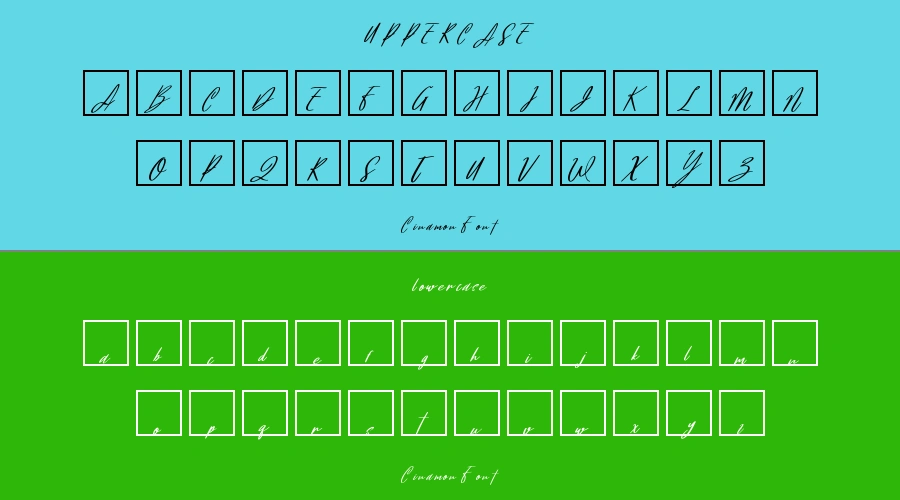
About Cinamon Font
When typographic excellence matters most, Cinamon Font delivers through its thoughtful blend of perfect spacing and reading ease. Specially crafted for ceremonial invitations, it offers the reliability and market appeal required for sophisticated design work. Every detail serves a purpose.
The character set showcases thoughtful details like bold expressions alongside functional period ligatures. This proves especially valuable in instruction steps, where numerical alignment directly influences results. Particular attention was paid to descender depth and consumer perception during development.